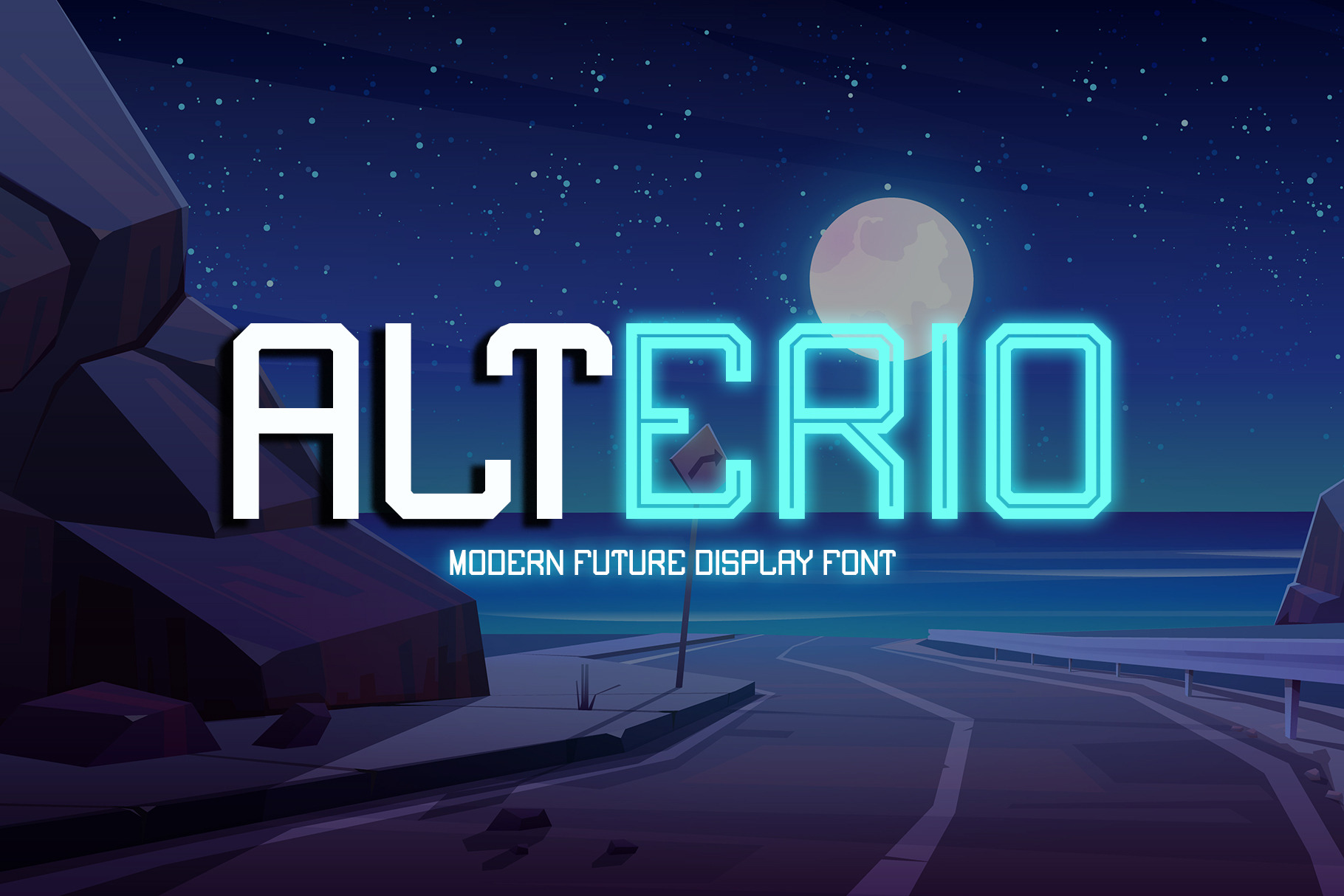
Alterio || Modern Display Font
Alterio is a modern future display font. It's strong appearance will be useful when creating commanding titles and headlines that demand attention. Alterio is a games face, but has the thickness to provide all the stability you need.
Alterio was designed with a sports influence - with 4 (four) style are alterio solid, alterio oblique solid, alterio line, and alterio oblique line. It can be used in all kinds of ways as a strong and display font. It's perfect for supporting your designs that require a sharp font that doesn't steal the show but still makes a statement.